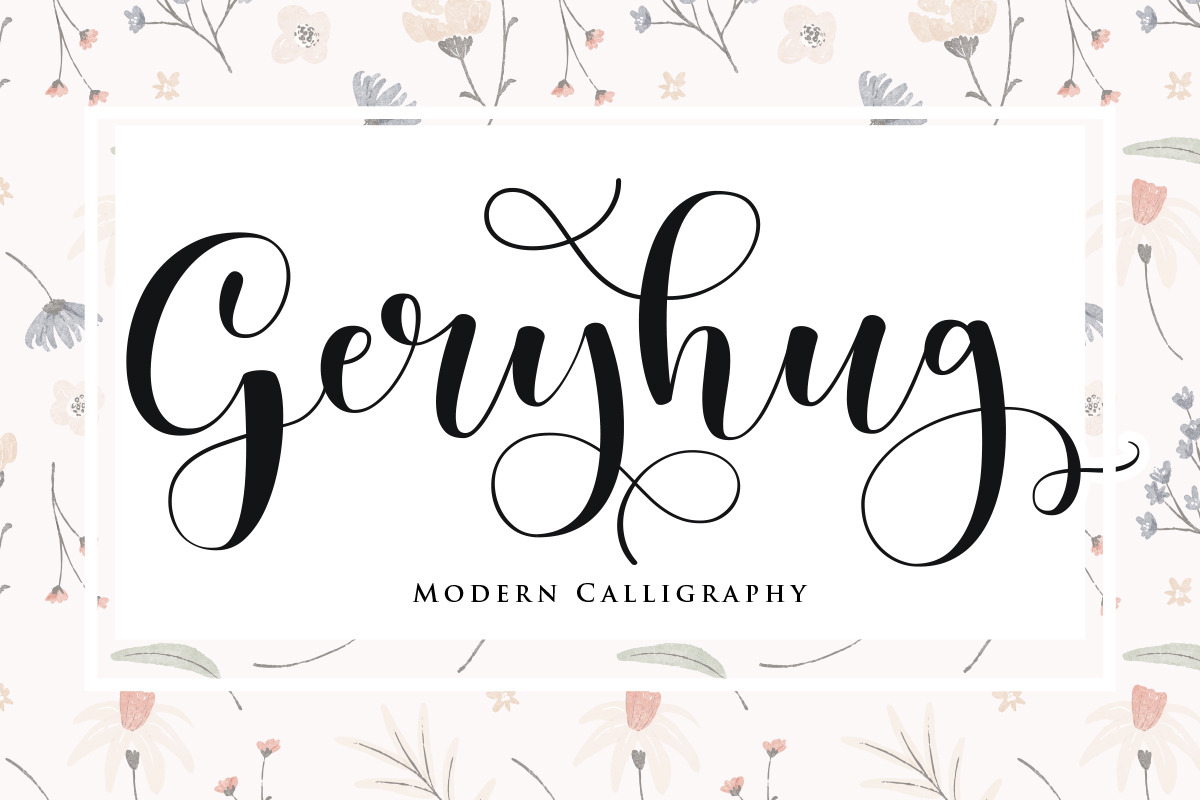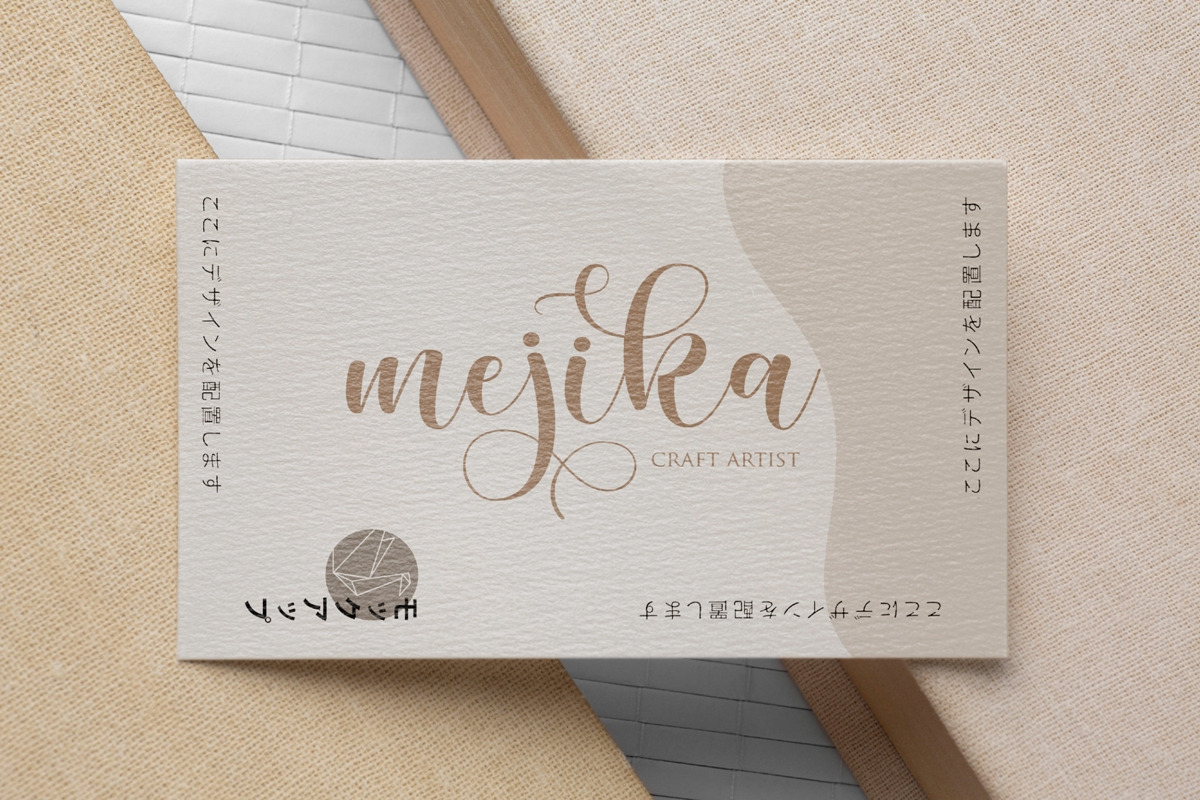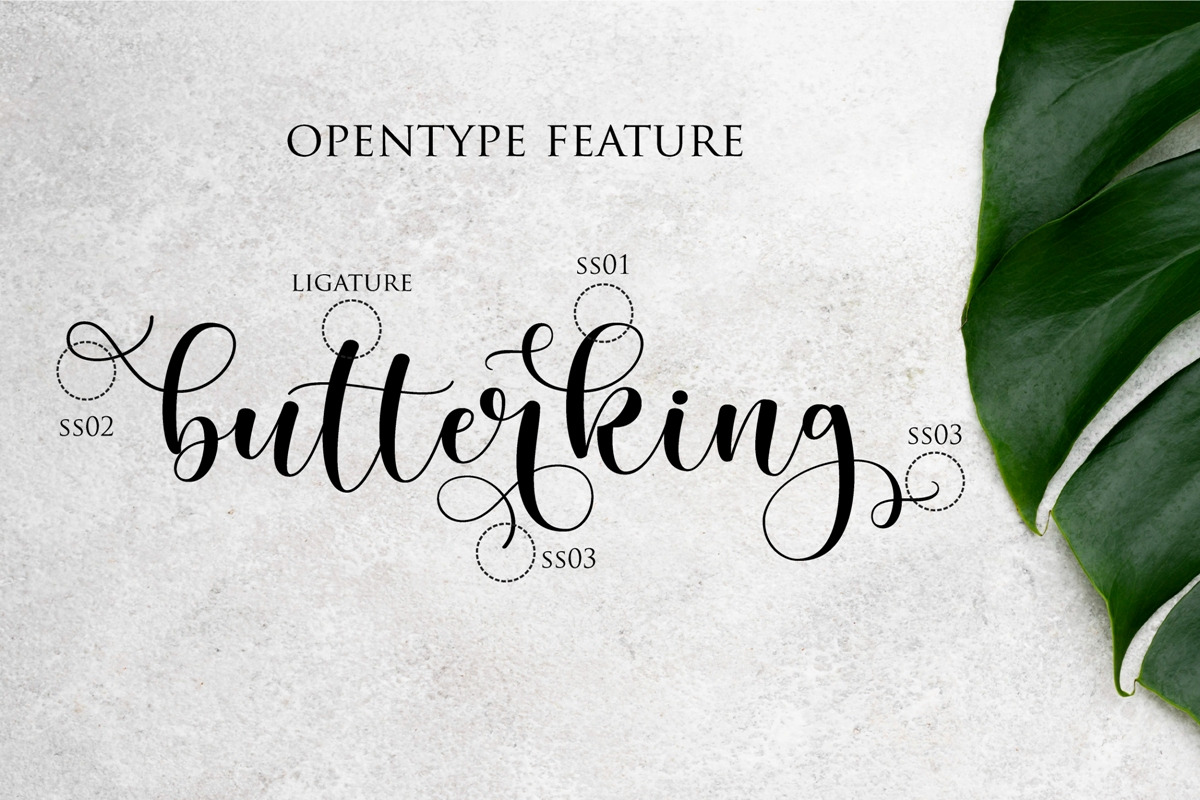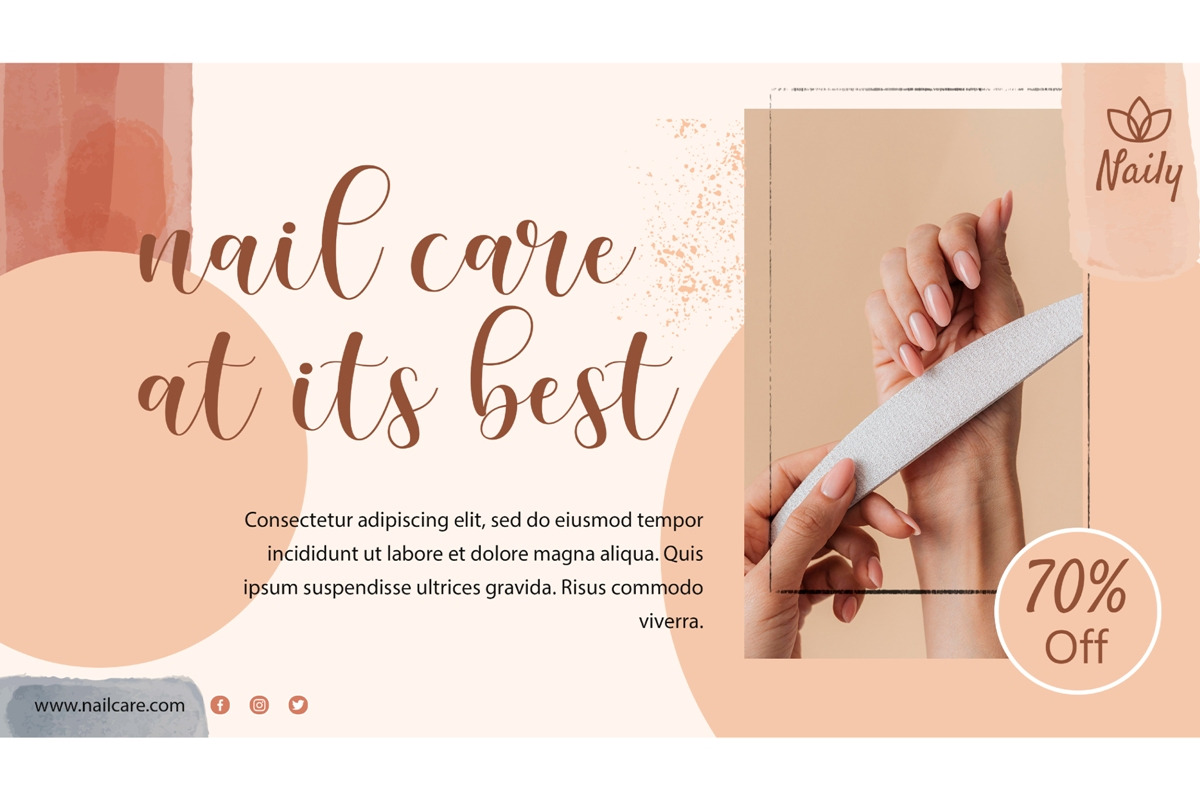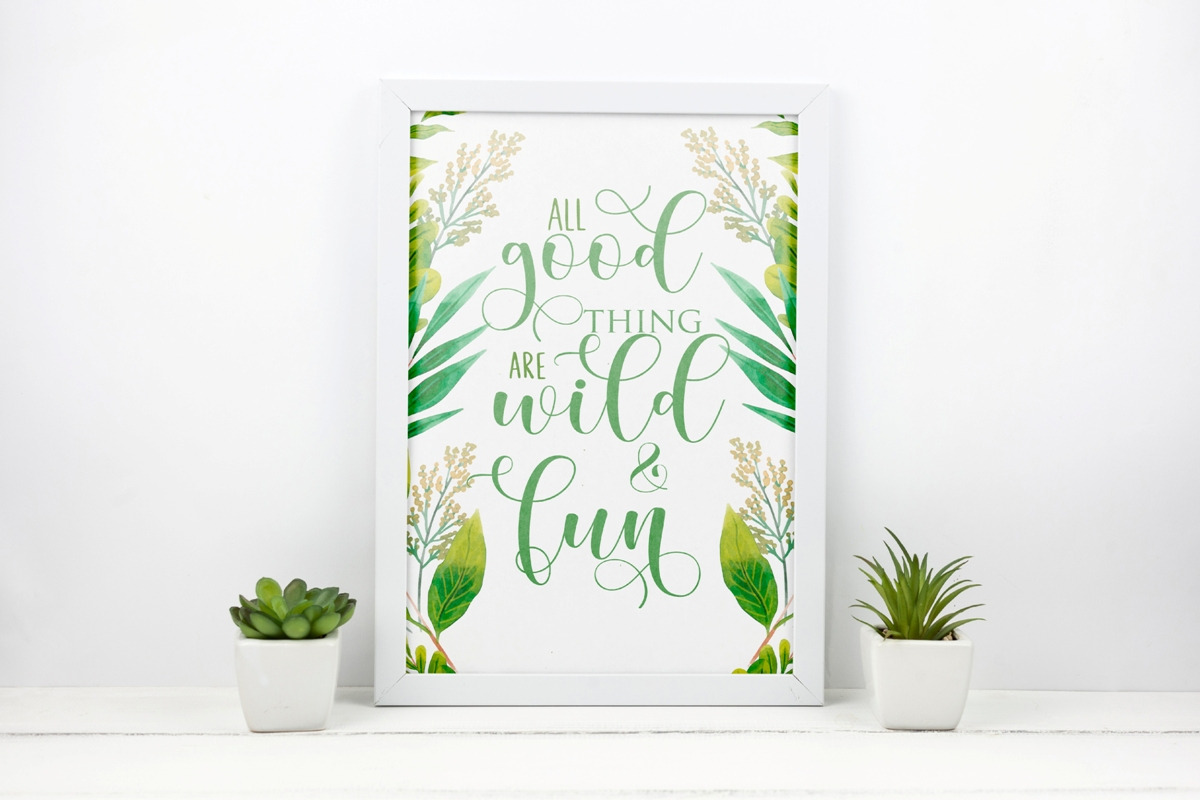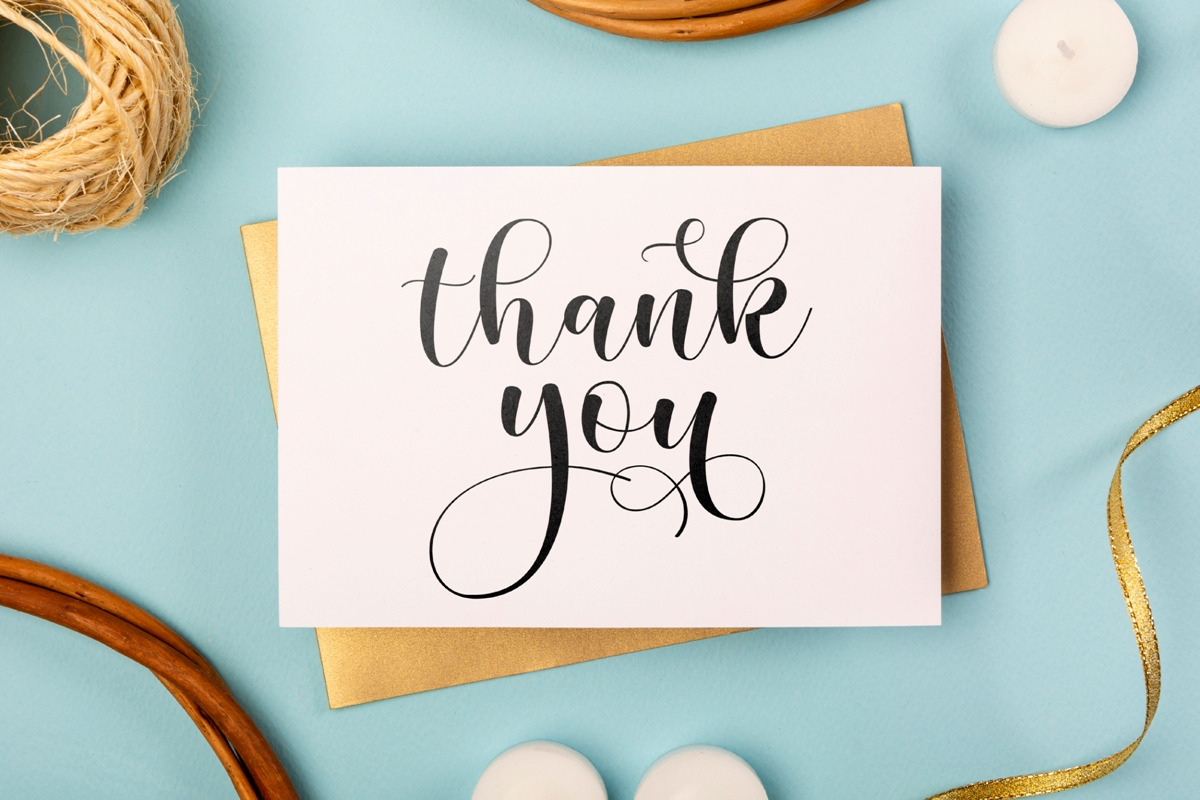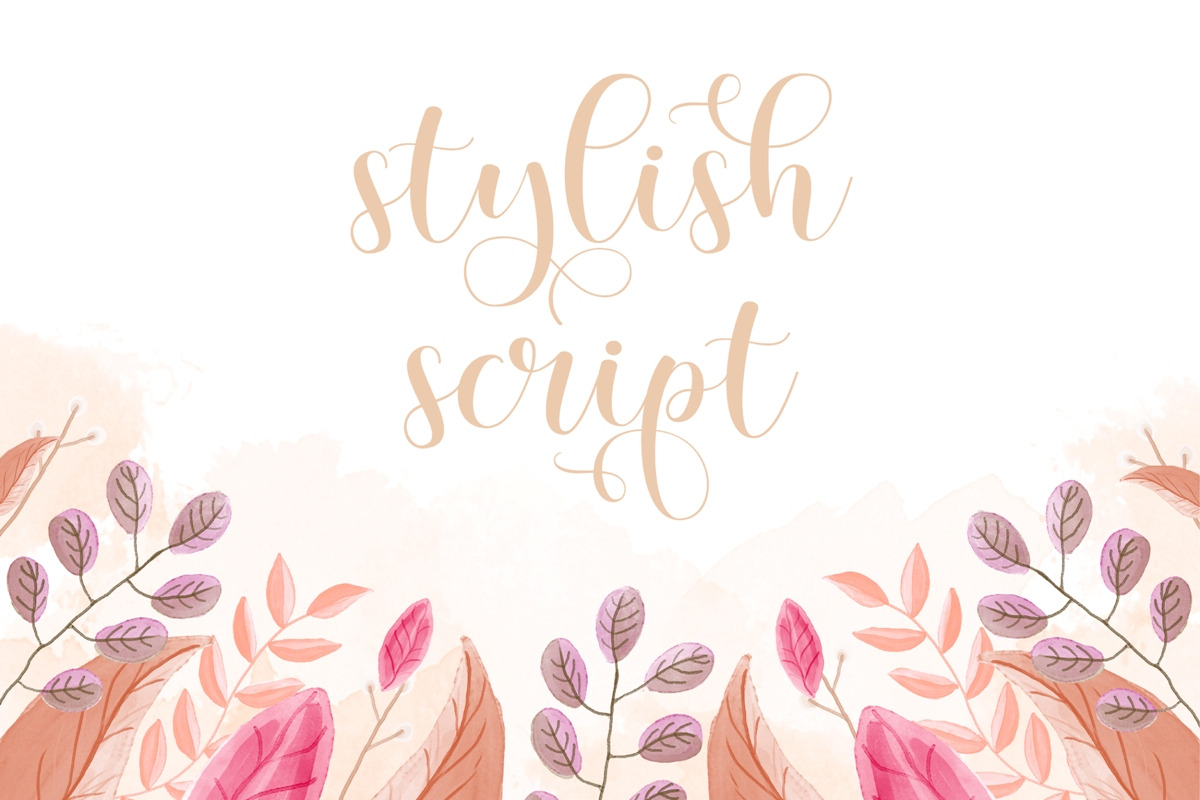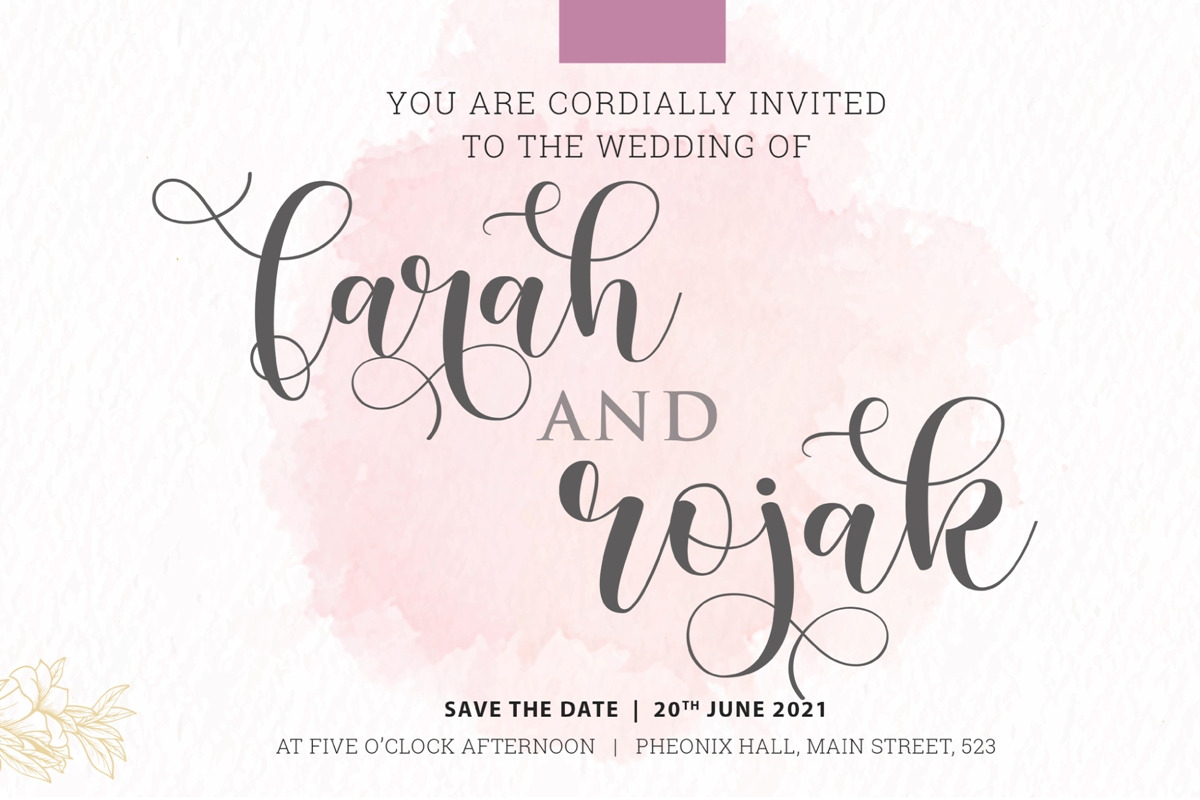
Geryhug | Modern Calligraphy Font
Geryhug is a beautiful, flowing and lovely handwritten font.
It looks beautiful on a variety of designs requiring a personalized style, such as wedding invitations, thank you cards, weddings, greeting cards, logos and so on. This font is PUA encoded which means you can access all of the glyphs and swashes with ease!
Geryhug a new fresh & modern script with stylistic swash style, decorative characters and a dancing baseline! So beautiful on invitation like greeting cards, branding materials, business cards, quotes, posters, and more!!
You can mix and match with Opentype feature:
Ekstras 16 ligature
More than 283 of glyphs
Stylistic sets from ss01 to ss08